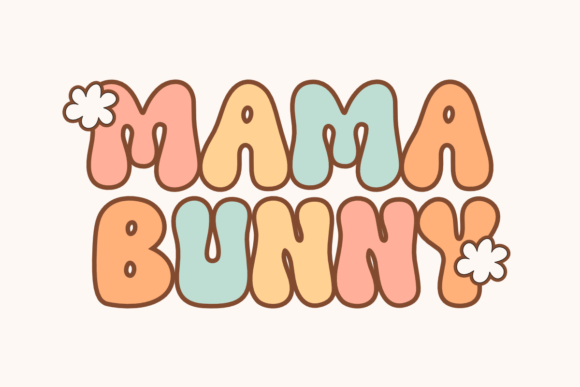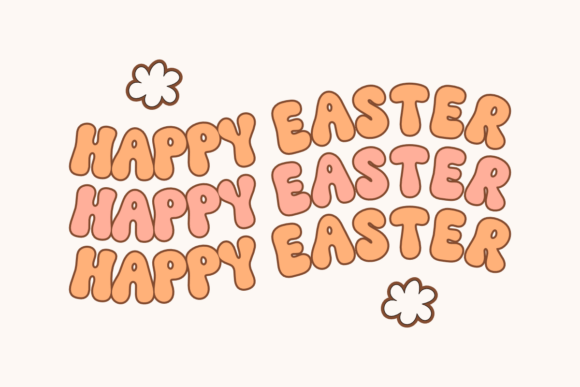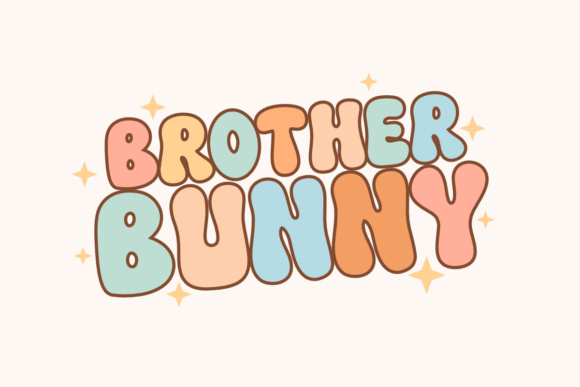
Introduction to Funky Smile Font
Who hasn’t been there – staring at a blank design canvas, searching for the perfect font to bring your creative project to life? The search can be overwhelming, especially when you’re looking for a font that exudes fun, joy, and a touch of nostalgia. That’s where the Funky Smile Font comes in – a playful and groovy display font that’s guaranteed to put a smile on your face and add a dash of retro charm to your designs.
With its bubbly, rounded letters and 70s-inspired style, the Funky Smile Font is a design resource that’s hard to resist. Its thick, outlined shapes and funky aesthetic make every design pop with happiness and energy, making it perfect for branding, posters, social media graphics, and kids’ designs.
Key Features of Funky Smile Font
- High-quality, unique design perfect for creative projects, offering a distinctive touch to any design resource.
- Transparent background, allowing for seamless integration with any background image or color.
- Features a funky, smile-inspired design, adding a playful touch to any project.
Honest Review: Funky Smile Font
I recently stumbled upon the Funky Smile Font, a design resource that caught my attention with its unique style and high quality.
What works well: ✨ The font is incredibly versatile, perfect for a creative project that needs a playful touch. I loved the variety of characters and glyphs included in the download, which made it easy to create engaging content. The transparent background feature also allowed me to seamlessly integrate the font into my designs.
Here are some of the key features that I appreciated:
- Unique and quirky design
- High-quality vector graphics
However, I did encounter a few limitations: ⚠️ The font may not be suitable for formal or professional designs, as it can come across as too playful or childish. Additionally, the character set is limited, which may not be ideal for projects that require a wide range of characters.
Overall, I’m impressed with the Funky Smile Font and would recommend it to designers looking for a creative and high-quality design resource. With its unique style and versatility, it’s a great addition to any design library.
Use the Funky Smile Font with a transparent background to create a modern and stylish design. Experiment with different font sizes and styles to add emphasis to your text. Combine the font with other design elements to create a unique and eye-catching design.
The Funky Smile Font is commonly used in social media graphics, flyers, and posters. It is also used in branding and logo design, as well as in creative projects such as infographics and presentations. The font is versatile and can be used in a variety of design projects to add a touch of fun and personality.